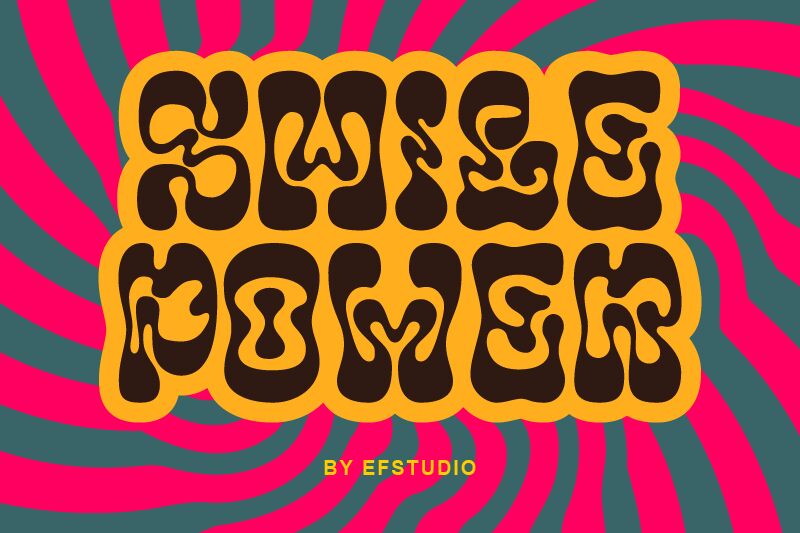
Smile Power font is a bold groovy display typeface designed by Ef Studio. Inspired by the retro style, the font presents an organic and fluid form with psychedelic influences. Its visually eye-catching design gives it a lively expressive character which makes it suitable for various versatile uses.
Smile Power suits well headlines, posters, branding designs, and packaging designs. Use it in album covers or social media graphics to get an eye-catching look that gets you noticed. Other valid uses include advertisements or promotional materials, banners, apparel designs, magazine covers., and invitation cards.
Features: Ligatures & Alternates